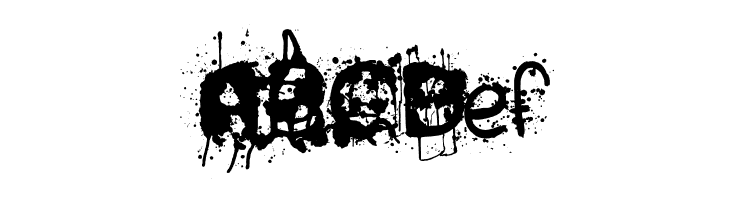
Tumult Regular Font
Font by Sharvanna Kenny. <a href="https://www.behance.net/gallery/58308527/Tumult">https://www.behance.net/gallery/58308527/Tumult</a>
A bold, grungy font with a spray-painted, graffiti-like appearance.